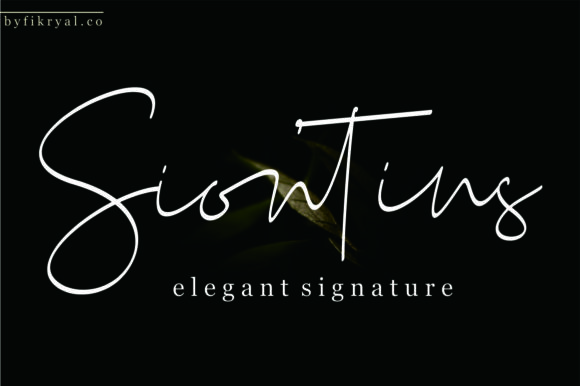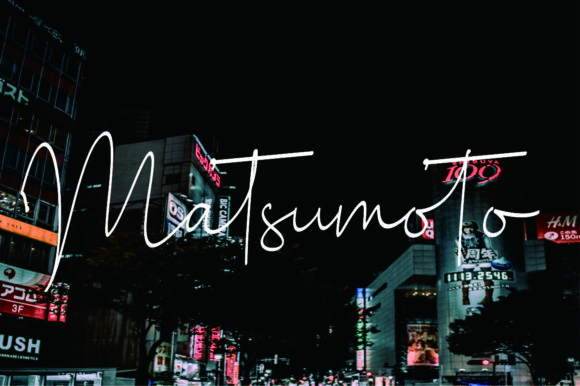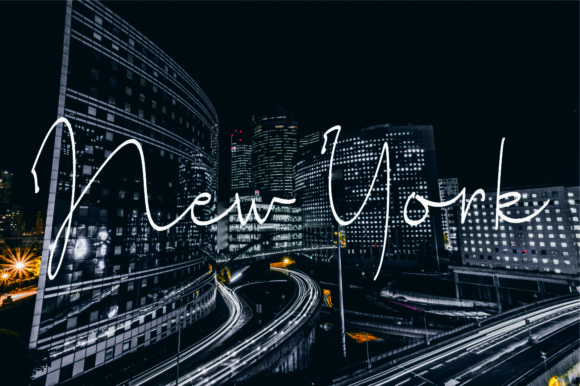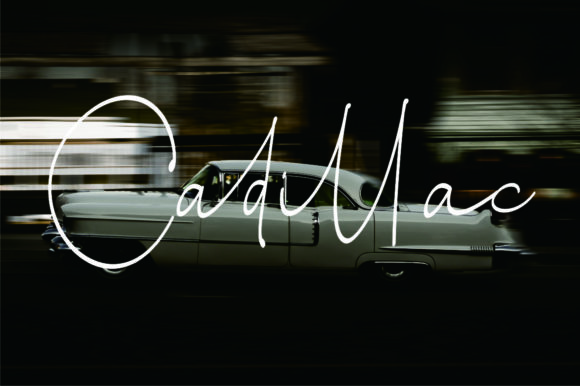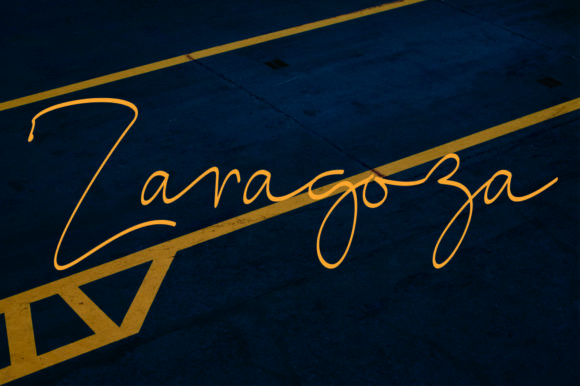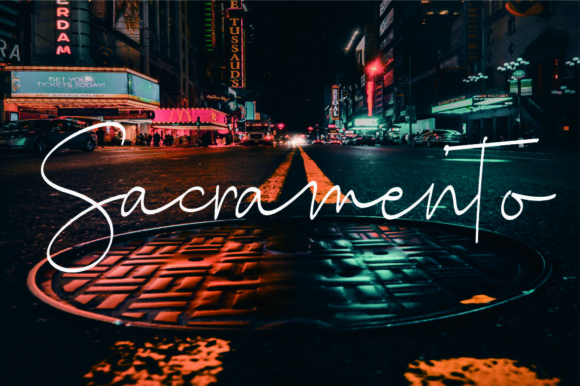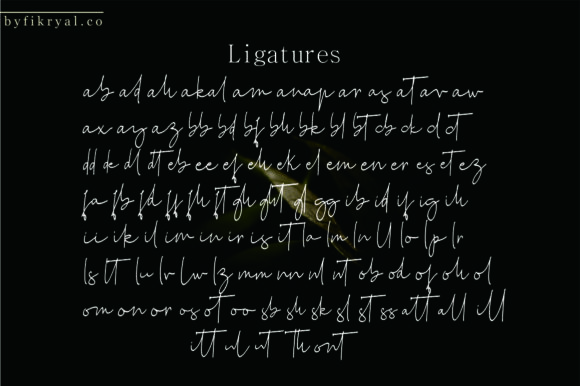
Siontins Font
About Siontins Font
The Siontins is an elegant signature font. It has a classy feel which makes it perfect for every design which needs to look upscale and chic.